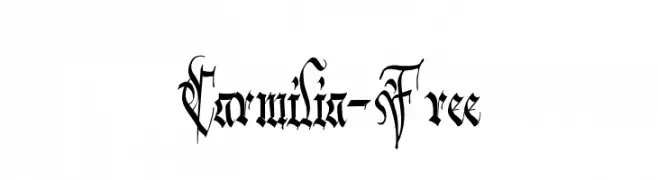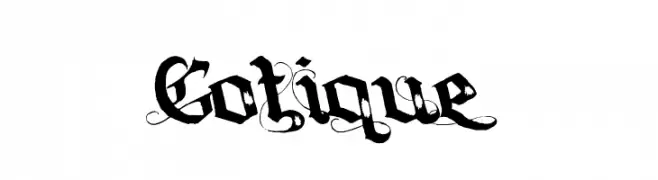
An ornate Blackletter font with gothic and medieval influences.
A bold blackletter font with a gothic, medieval style.
A gothic, horror-themed font with dripping elements and a blackletter style.
A bold blackletter font with sharp, angular lines and high contrast.
A bold, blackletter-inspired font with sharp serifs and intricate detailing.
An intricate, gothic Blackletter font with elaborate, angular designs.
A classic Blackletter font with ornate, angular letterforms and medium contrast.